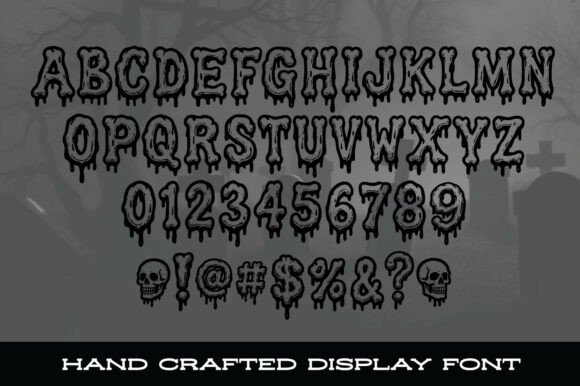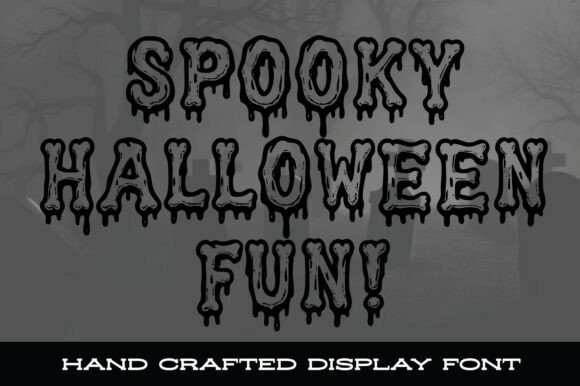
Drippy Bones Font: The Ultimate Horror Display Font for Spooky Designs
Are you looking for a font that will add a touch of bone-chilling character to your designs? Look no further than Drippy Bones, a gruesomely fun horror display font that’s perfect for Halloween designs, horror posters, haunted attractions, and more. In this article, we’ll take a closer look at Drippy Bones and explore its features, uses, and benefits for designers and crafters.
What is Drippy Bones Font?
Drippy Bones is a unique and eye-catching font that’s crafted from skeletal forms that ooze with black, dripping liquid. Each letter appears to be sculpted from real bone, complete with porous textures, cracks, and subtle marrow details, melting into inky darkness below. The style captures the perfect blend of creepy and cartoonish, making it ideal for designers who want to add a touch of horror to their work.
Key Features of Drippy Bones Font
- Gruesomely fun design: Drippy Bones is a font that’s not for the faint of heart. Its gruesome design is perfect for horror-themed projects and Halloween designs.
- Skeletal forms: Each letter is crafted from skeletal forms that add a touch of eeriness to your designs.
- Porous textures and cracks: The font features porous textures and cracks that give it a realistic and worn look.
- Subtle marrow details: The font also features subtle marrow details that add to its realistic look.
- Black, dripping liquid: The font’s design features black, dripping liquid that adds to its creepy effect.
- Perfect blend of creepy and cartoonish: Drippy Bones has a perfect blend of creepy and cartoonish, making it ideal for designers who want to add a touch of horror to their work.
Uses of Drippy Bones Font
Drippy Bones is a versatile font that can be used for a variety of projects, including:
- Halloween designs: Drippy Bones is perfect for Halloween designs, including posters, flyers, and social media graphics.
- Horror posters: The font is ideal for horror posters, movie posters, and album covers.
- Haunted attractions: Drippy Bones can be used to create eye-catching signs and graphics for haunted attractions.
- Any project that calls for a touch of bone-chilling character: The font can be used for any project that requires a touch of horror, including video games, animations, and more.
Benefits of Using Drippy Bones Font
There are several benefits to using Drippy Bones font, including:
- Unique and eye-catching design: Drippy Bones has a unique and eye-catching design that’s sure to grab attention.
- Perfect for horror-themed projects: The font is perfect for horror-themed projects and Halloween designs.
- High-quality design: The font features a high-quality design that’s sure to impress.
Tips for Using Drippy Bones Font
Here are some tips for using Drippy Bones font:
- Use it sparingly: Drippy Bones is a bold font, so use it sparingly to avoid overwhelming your design.
- Pair it with other fonts: The font can be paired with other fonts to create a unique and eye-catching design.
- Experiment with different colors: Drippy Bones can be used with different colors to create a unique effect.
- Use it for headlines and titles: The font is perfect for headlines and titles, where its bold and eye-catching design can shine.
Drippy Bones is a unique and eye-catching font that’s perfect for designers who want to add a touch of horror to their work. Its gruesomely fun design, skeletal forms, and porous textures make it ideal for Halloween designs, horror posters, haunted attractions, and more. With its easy-to-use design and high-quality features, Drippy Bones is a must-have font for any designer looking to add a touch of bone-chilling character to their work.